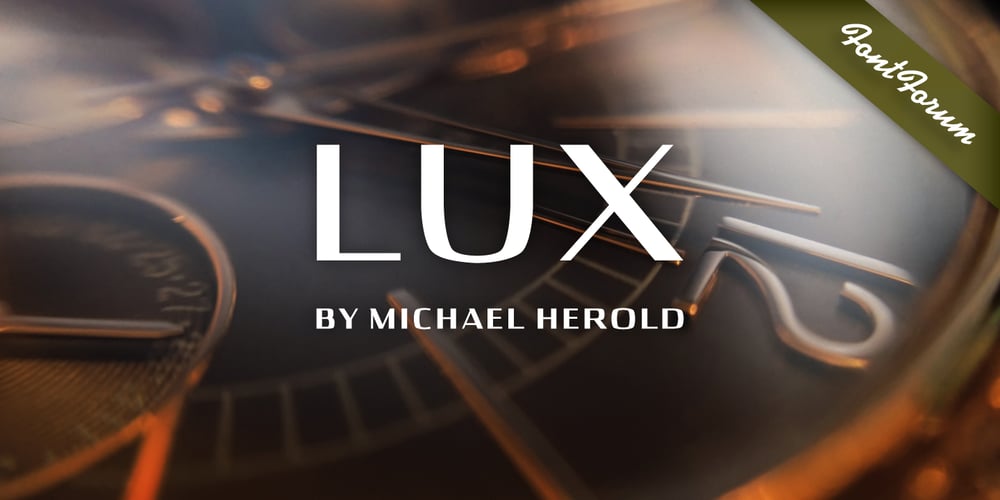
Lux Font Family was designed by Michael Herold and published by URW Type Foundry. Lux contains 1 styles and family package options. Many times, when a new creative process is starting, it is triggered by an everyday action or item. In this case, the looks of a lady’s watch inspired Michael Herold to create his new typeface LUX. The sight of the chronograph sparked associations of the 1950s in Mr. Herold: While this decade was predominantly dominated by brush and feather scripts, there was also a bloom of strict and modern architecture. This special mix of strength and retro style is exactly what Michael Herold is trying to capture in his LUX. The result is a typeface which is perfectly suitable for use on book covers, posters and claims – thanks to its striking impression. The name LUX, Latin for light, is inspired by the high bright-dark contrast within the individual characters. Oft sind es alltägliche Gegenstände, die das Bestreben eines neuen kreativen Prozesses auslösen. So entspringt auch die Inspiration zur Erschaffung der LUX von Michael Herold dem Anblick einer Damenuhr. Der Chronograph löste bei Herrn Herold Assoziationen zu den 1950er Jahren aus: Während diese Zeit hauptsächlich von Schreibschriften aus Federn und Pinseln beherrscht wurde, nahm auch die streng und modern anmutende Architektur starken Einfluss auf die Epoche. Diese Mischung aus Strenge und 50er Jahre Retro-Stil soll in der LUX zum Ausdruck kommen. Das Ergebnis ist eine Schrift, die sich mit ihrer plakativen Wirkung perfekt für Buchumschläge, Poster und Claims eignet. Namensgebend war der starke hell-dunkel Kontrast innerhalb der Schrift – festgehalten in dem lateinischen Wort für Licht.